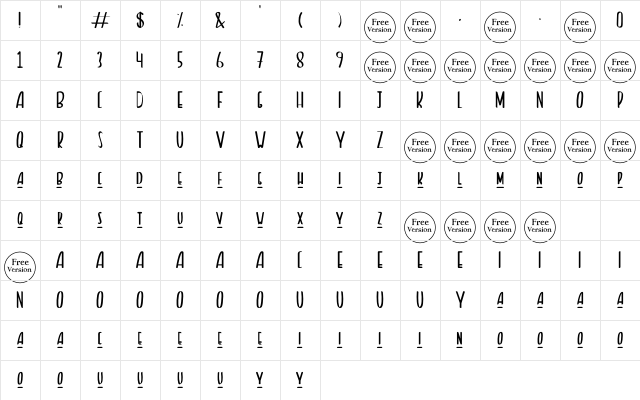
Complete Bluffton Free Trial Regular glyph index. Displaying only characters natively supported by Bluffton Free Trial Regular font.
Bluffton Free Trial is a composed and adaptable typeface that performs quietly and consistently across a wide range of design contexts.